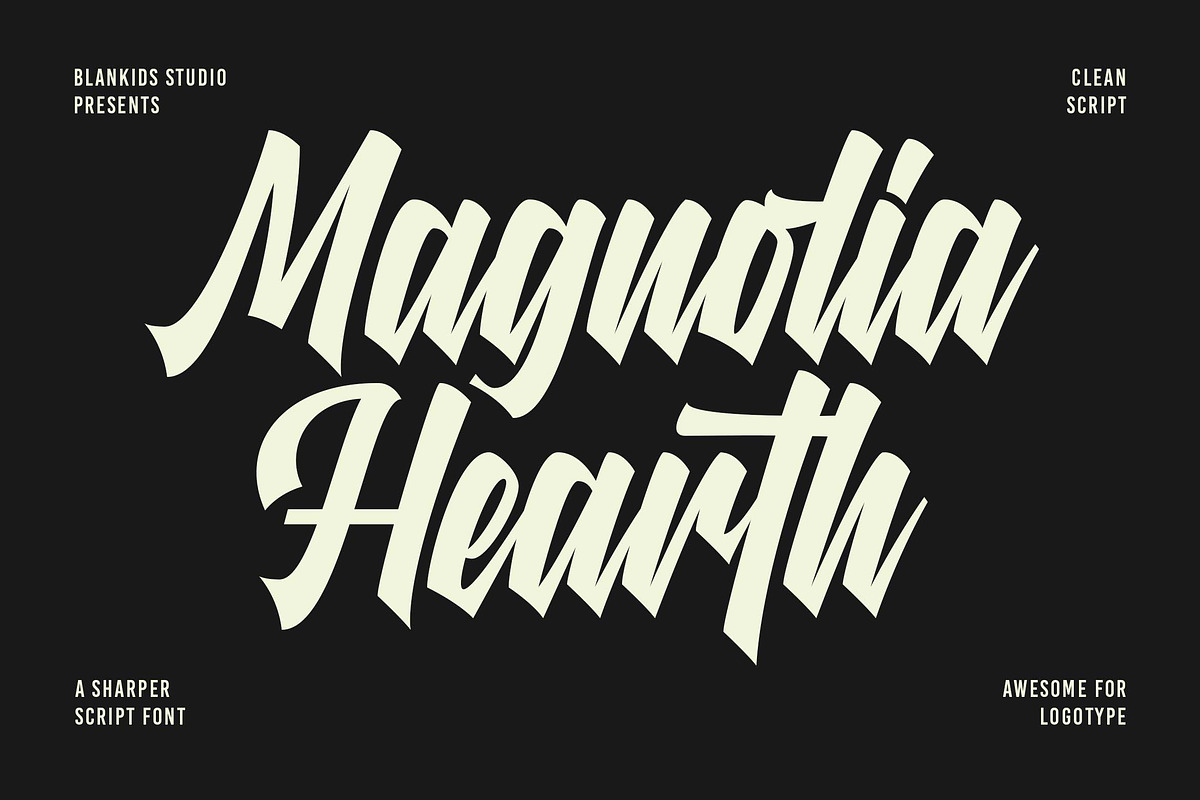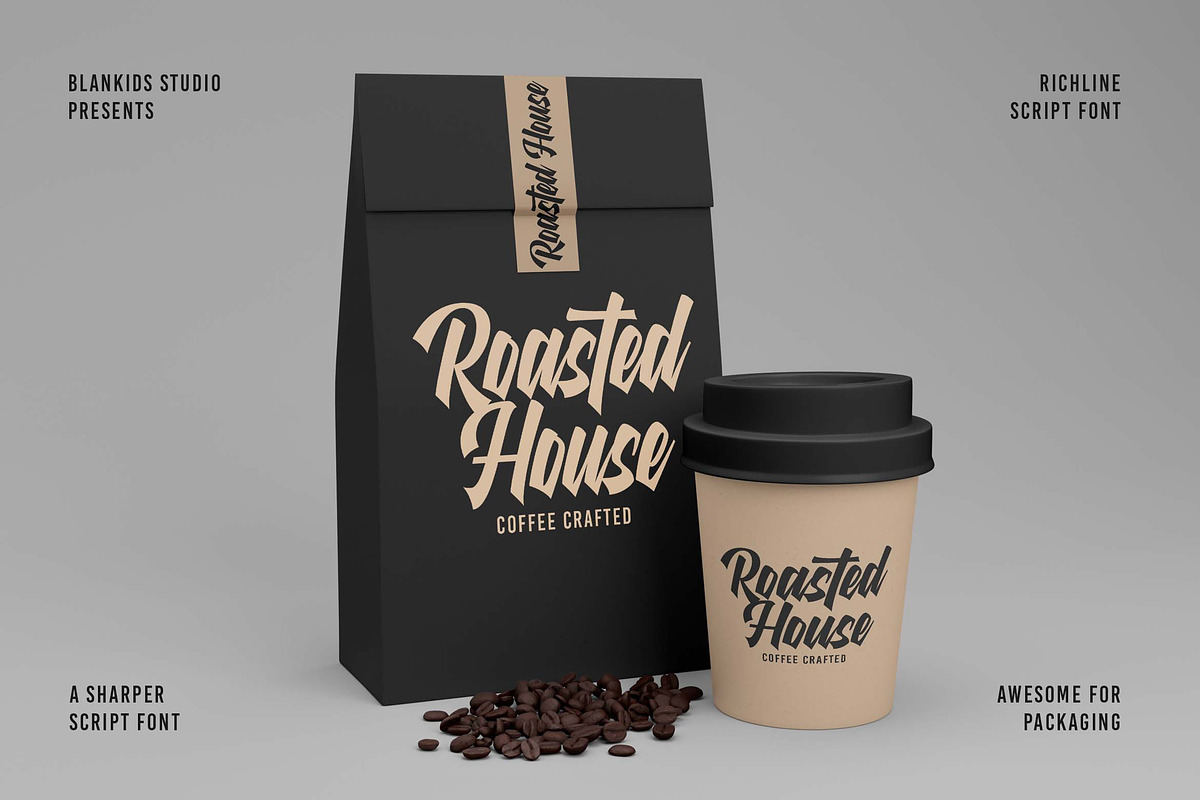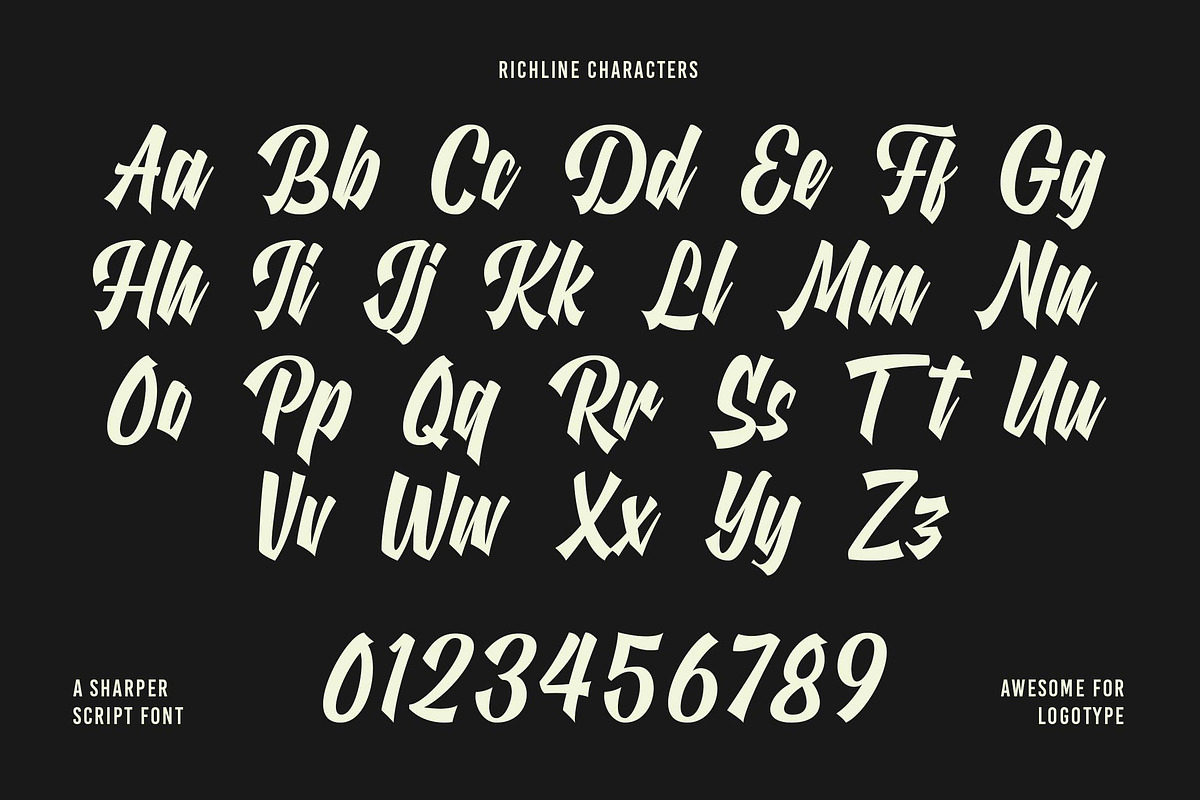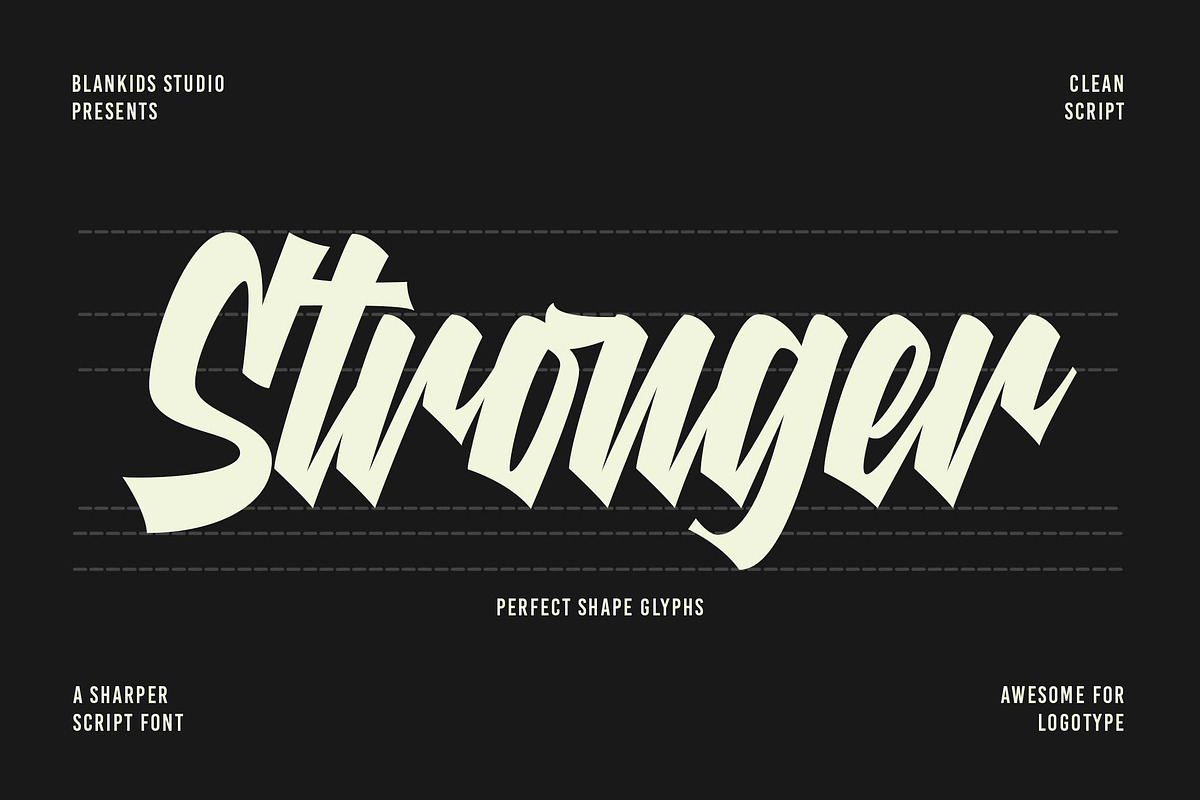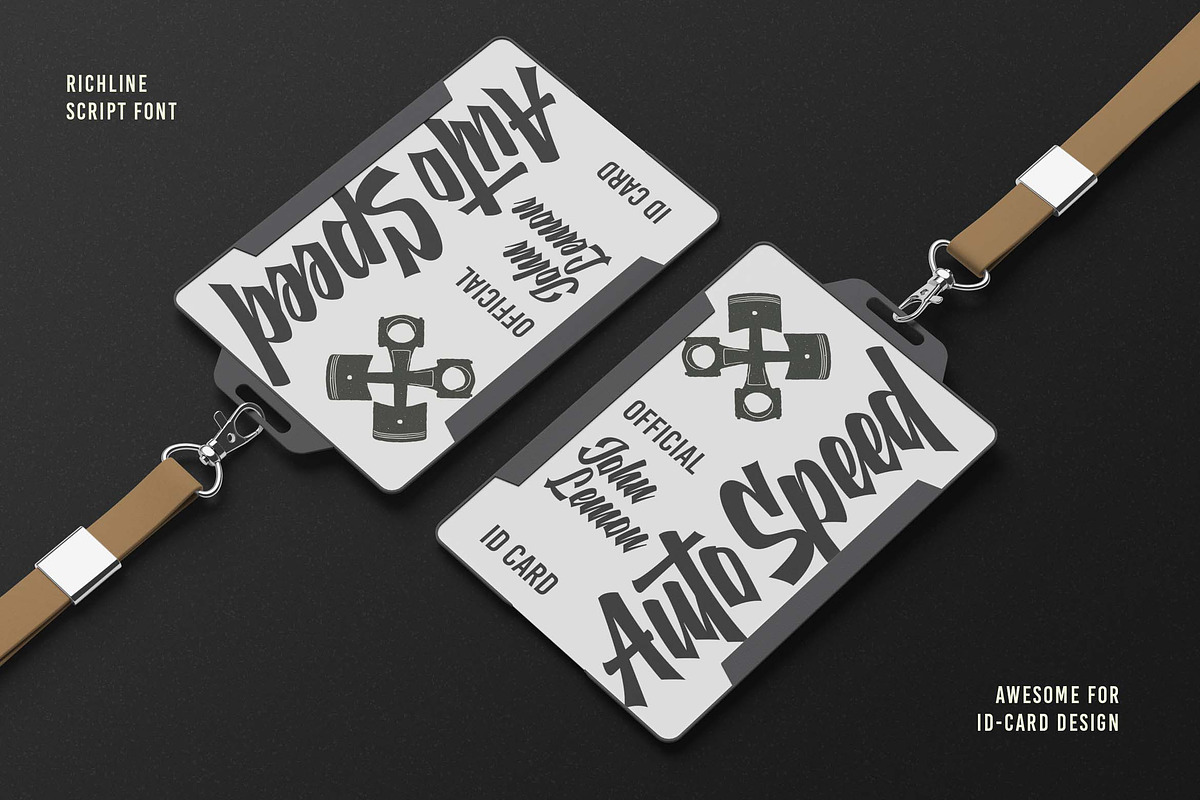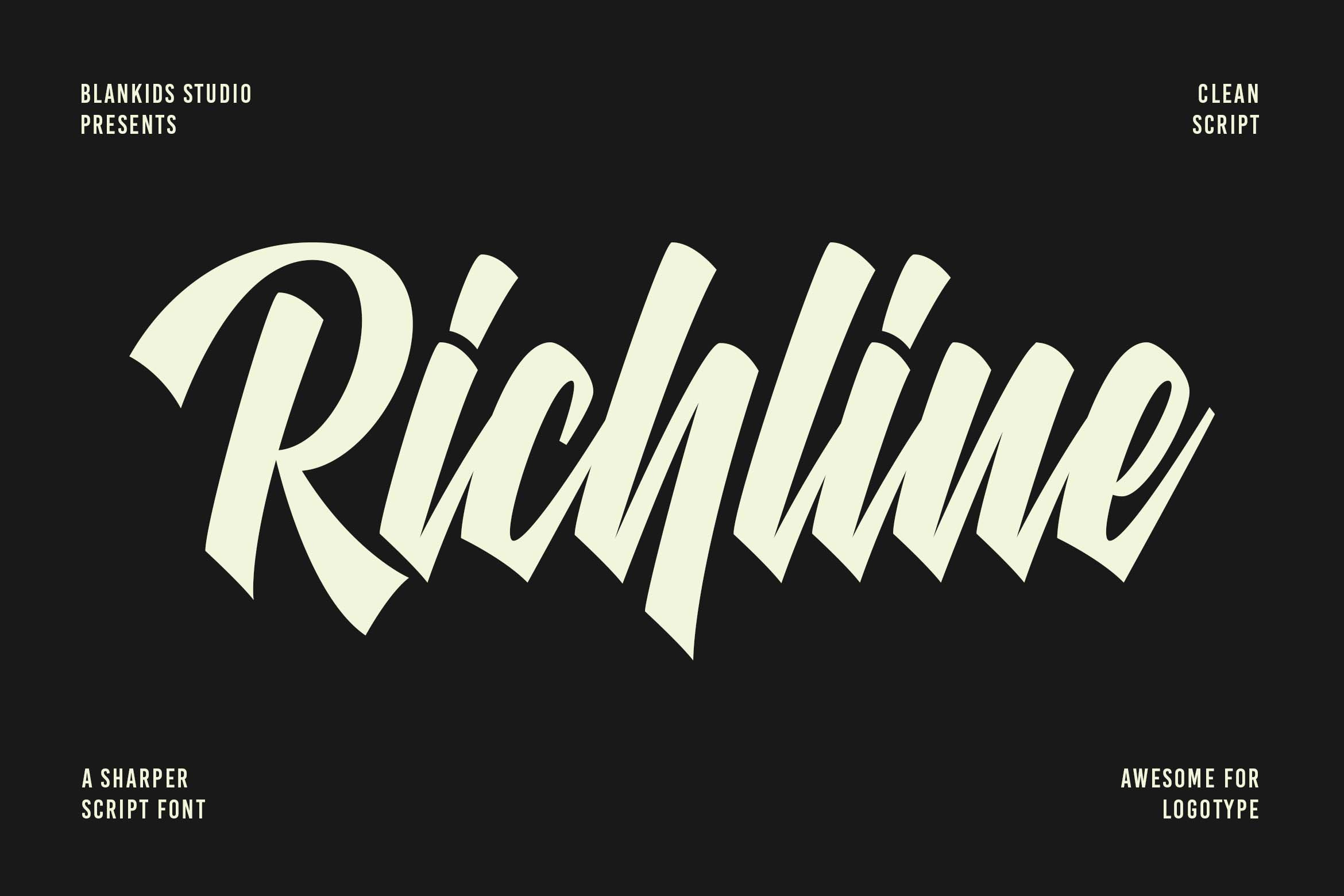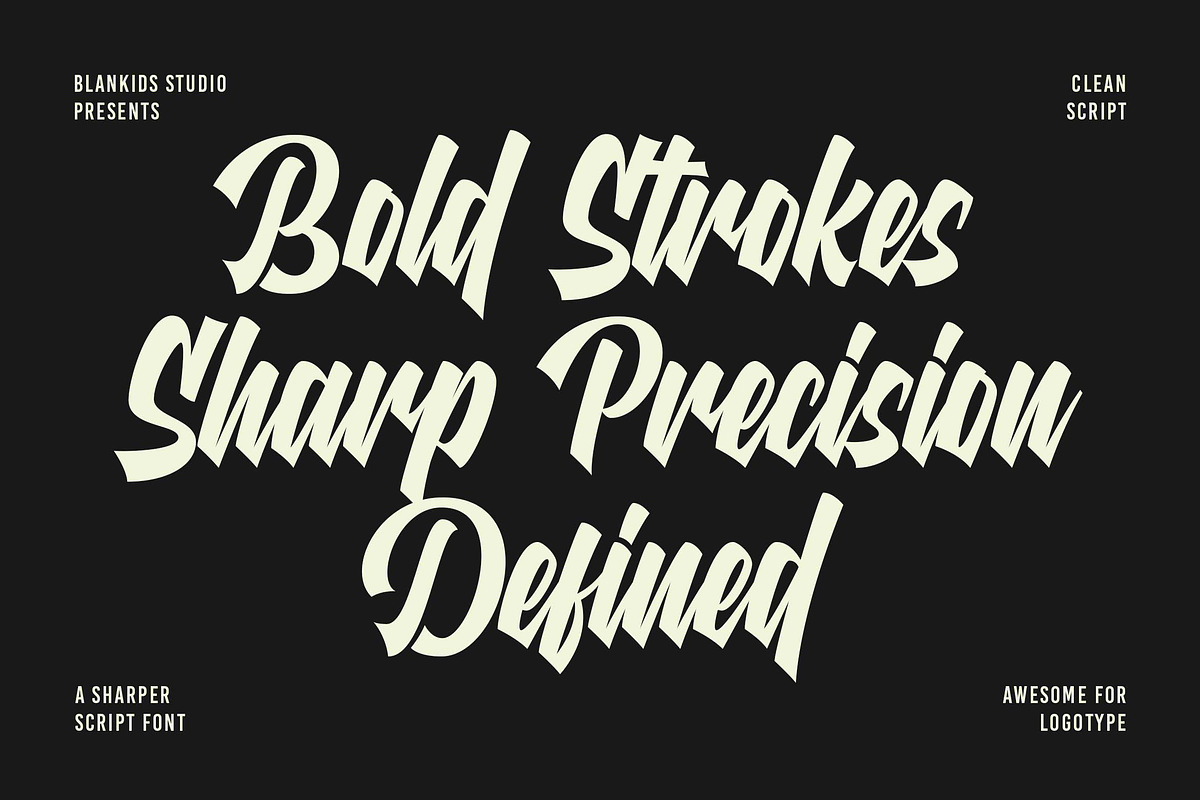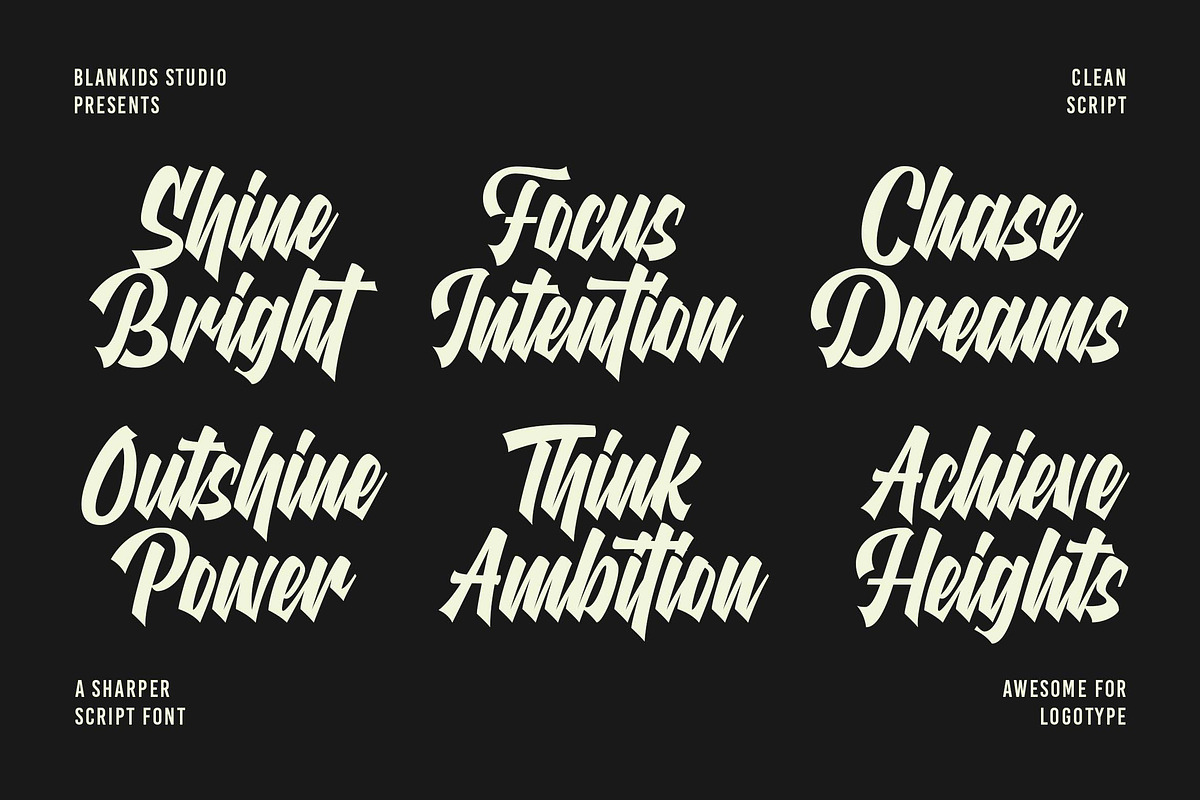
Richline a Sharper Script Font
Hello, awesome people! This time, we have a new font called Richline a Sharper Script Font by Blankids Studio.
Richline a Sharper Script Font is made for any professional project branding, such as logotype, t-shirt design, watermarks, poster, branding, promotions, product packaging, etc. Every letter has a sharper script style.
Richline font includes a full set of sharper script uppercase and lowercase letters, numerals and punctuation. This font has sharper script style. See the previews above to get some inspiration on how to use them. Happy designing!